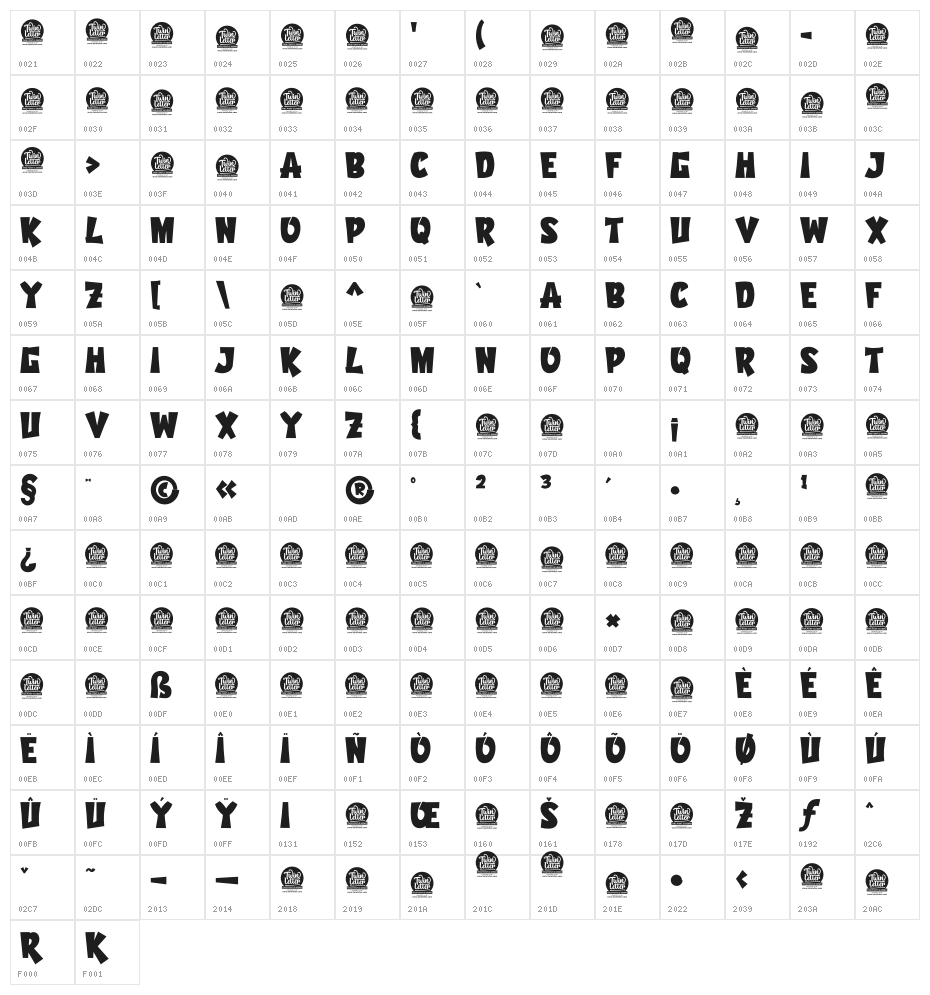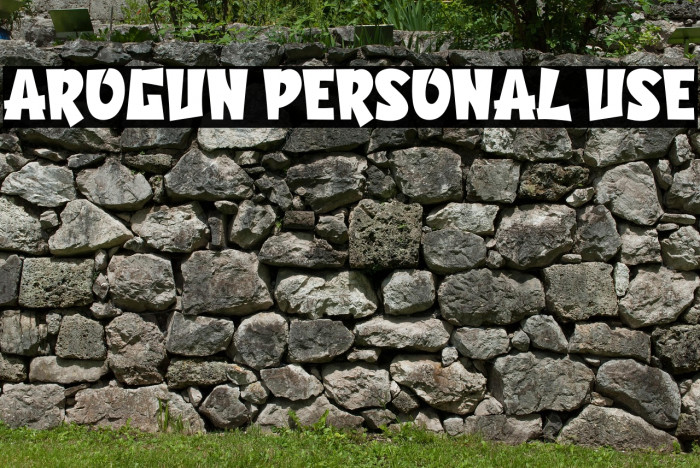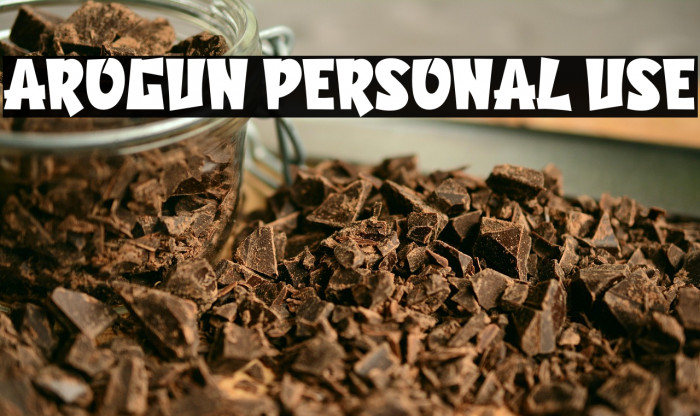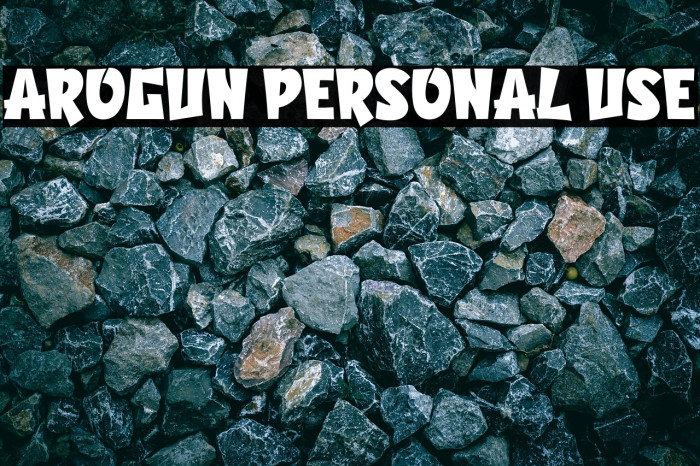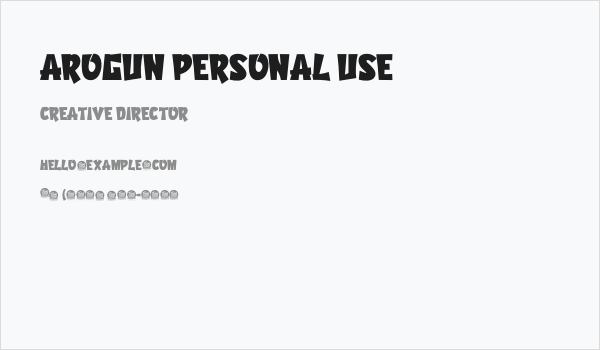
Arogun Personal Use Font
Arogun Personal Use Description
This font features a bold and playful design with exaggerated angles and a strong presence. The characters are uniquely shaped, giving them a dynamic and energetic feel. The uppercase letters have a slightly irregular form, adding to the font's whimsical nature. The lowercase letters maintain the same boldness, ensuring consistency throughout the typeface. The numbers and special characters are crafted with the same attention to detail, making them stand out. This font is perfect for projects that require a fun and eye-catching display.
| Overall Style | Playful, Energetic |
| Proposed Projects | Ideal for posters, children's books, comic titles, and playful branding. |